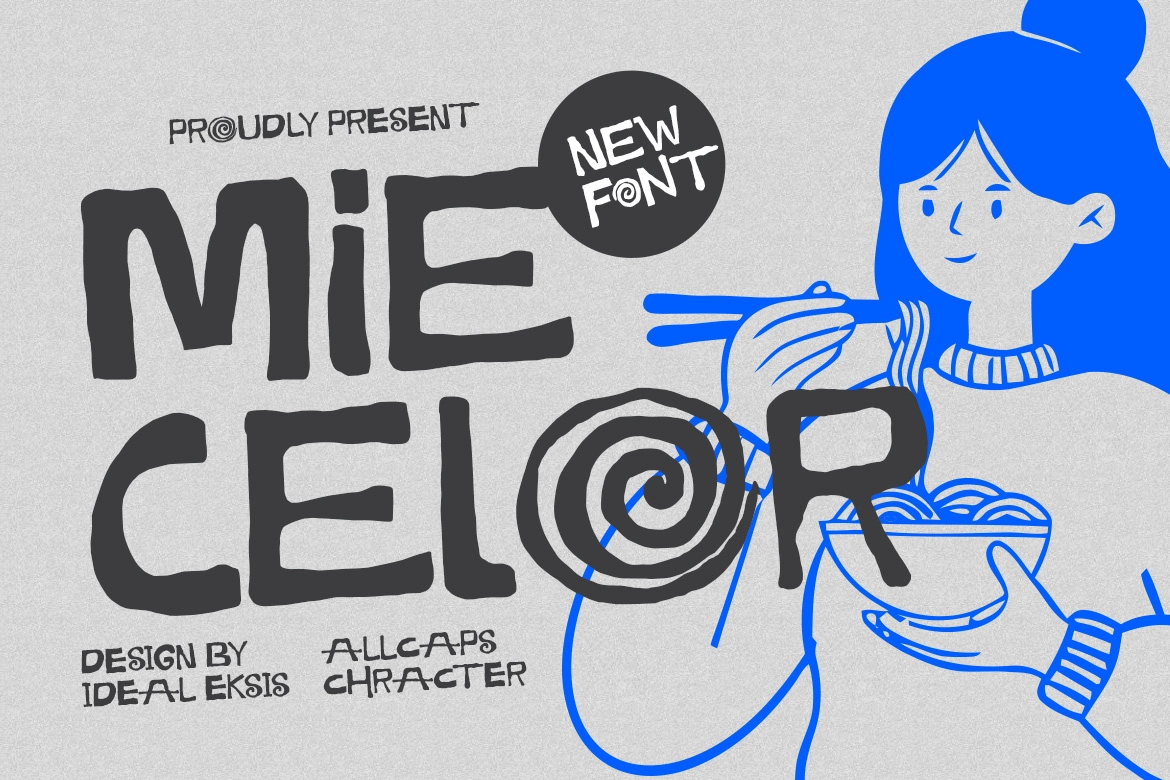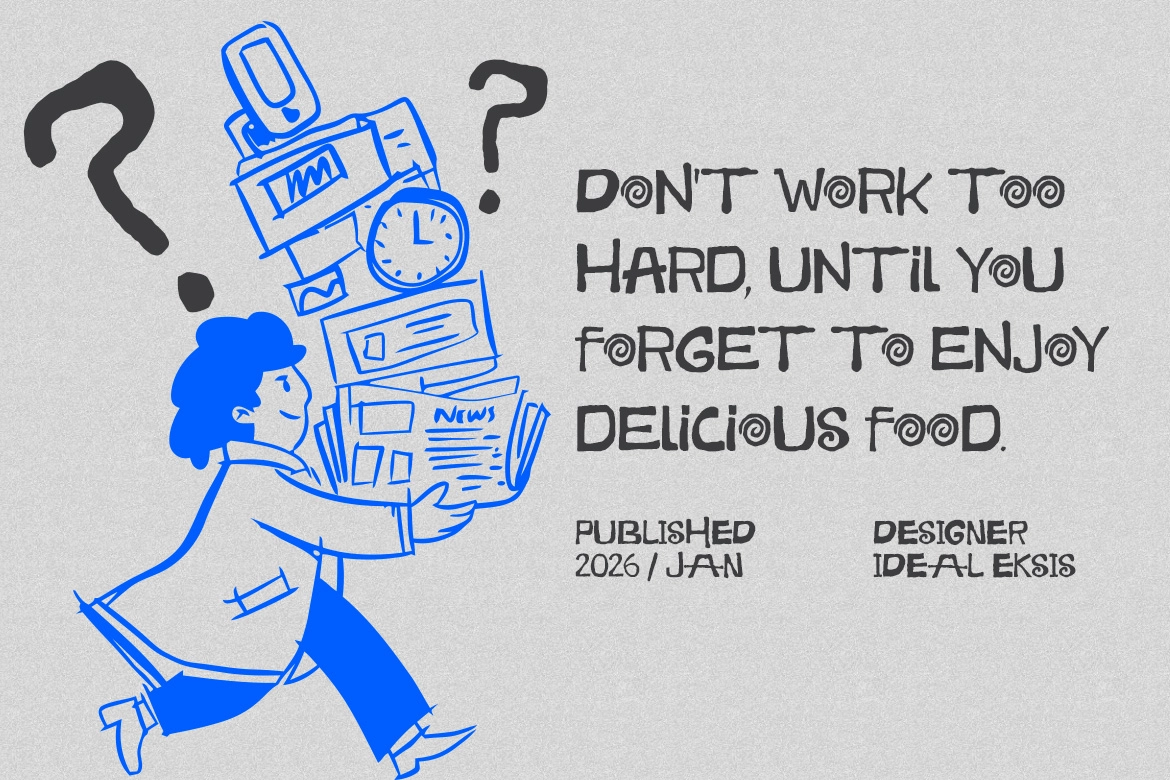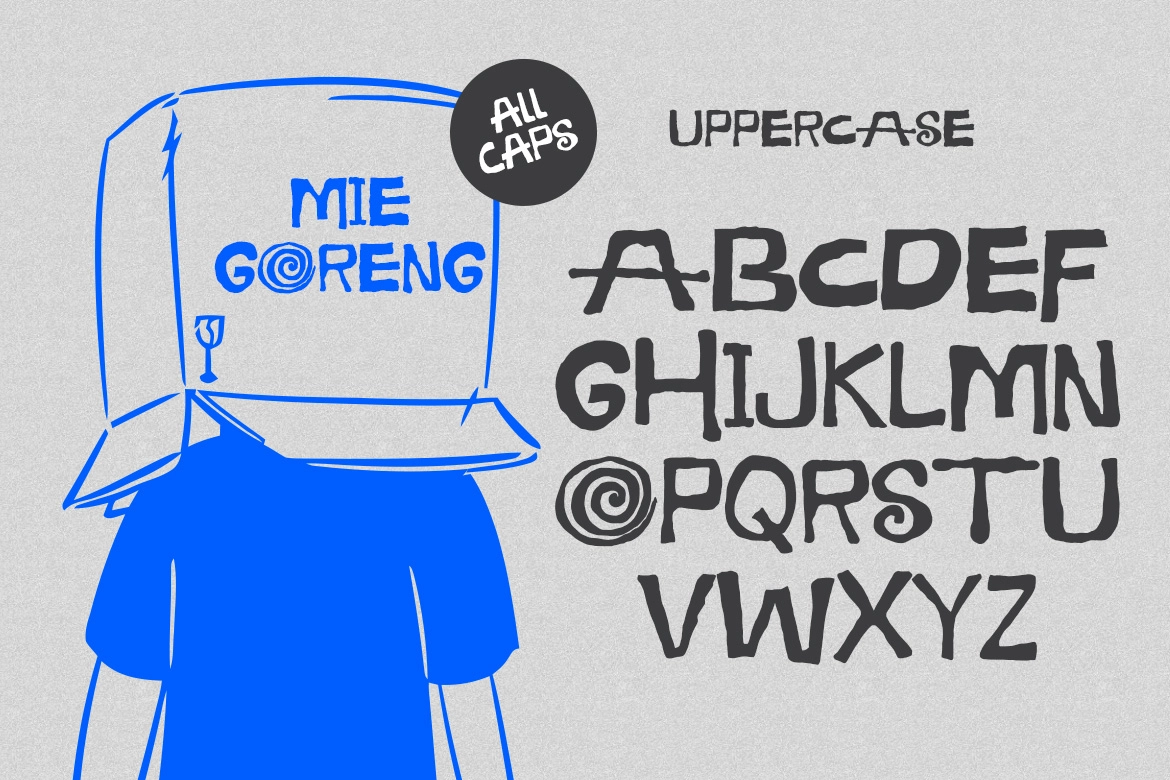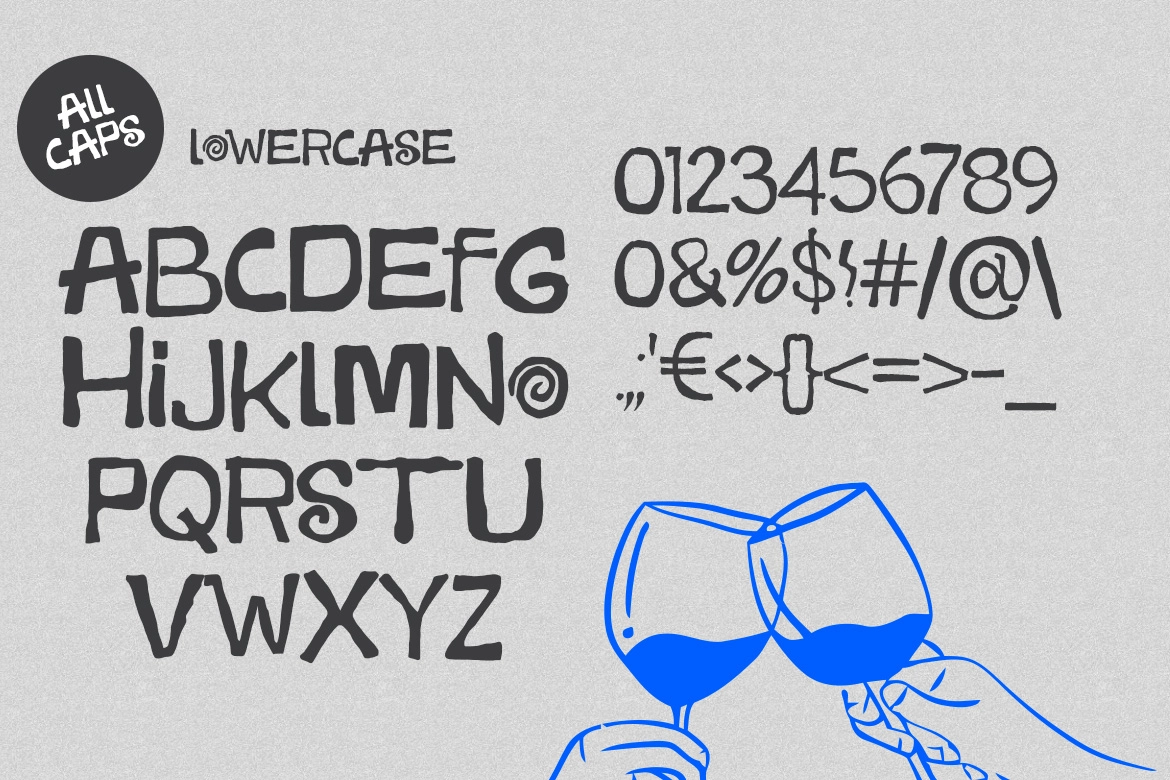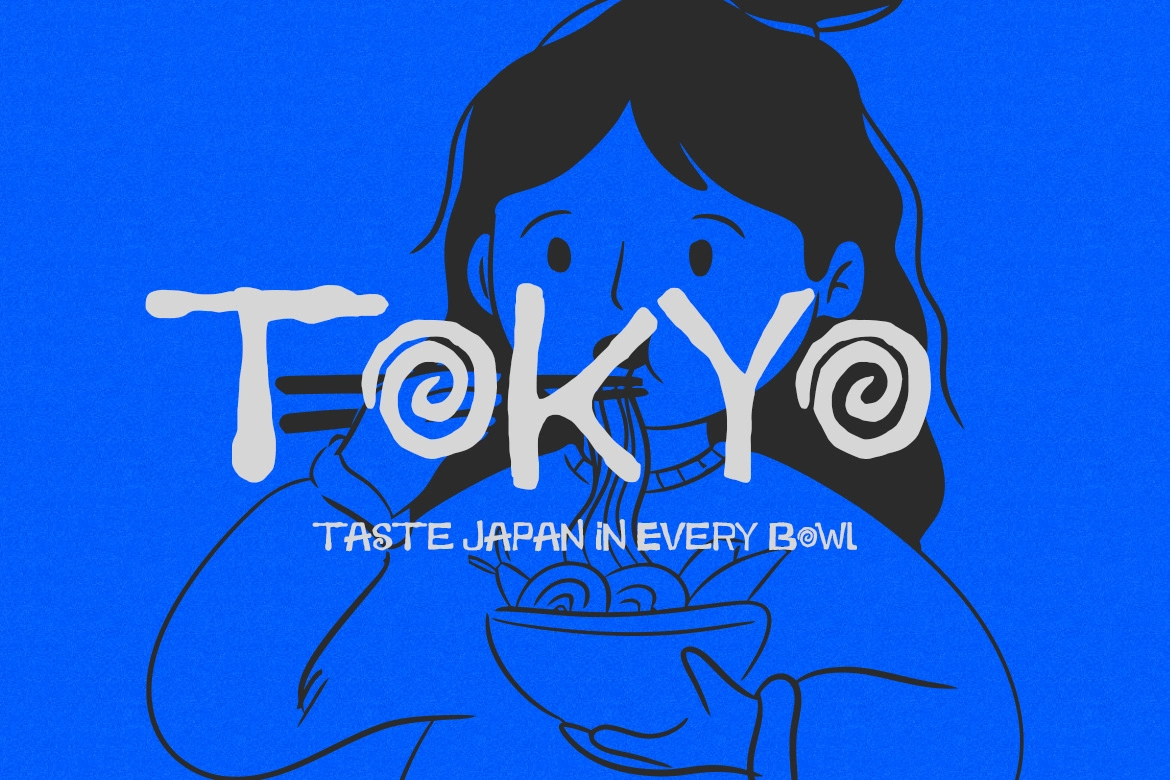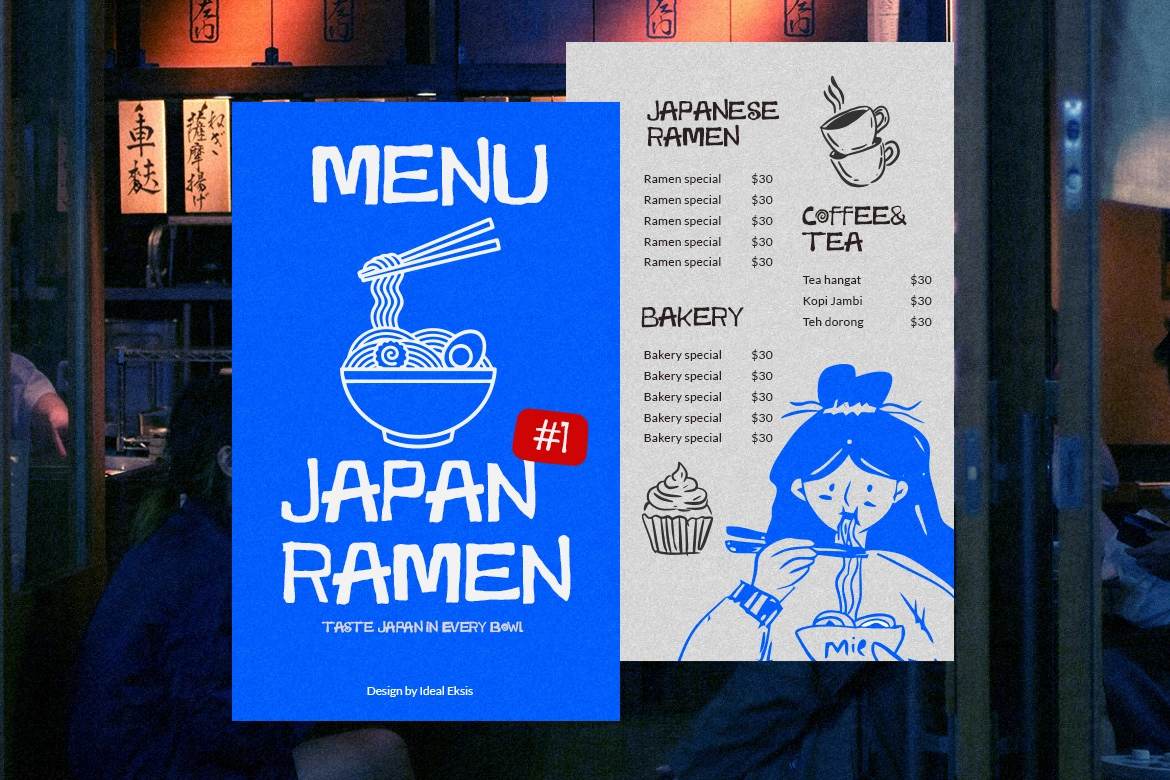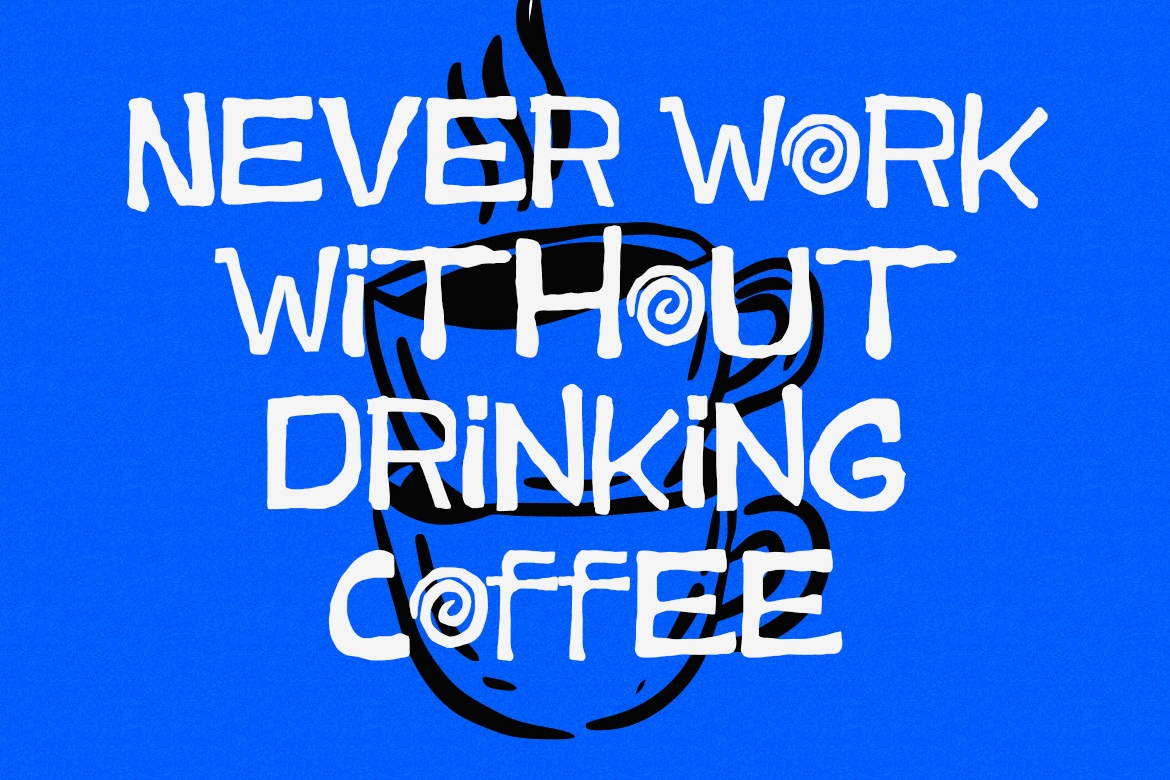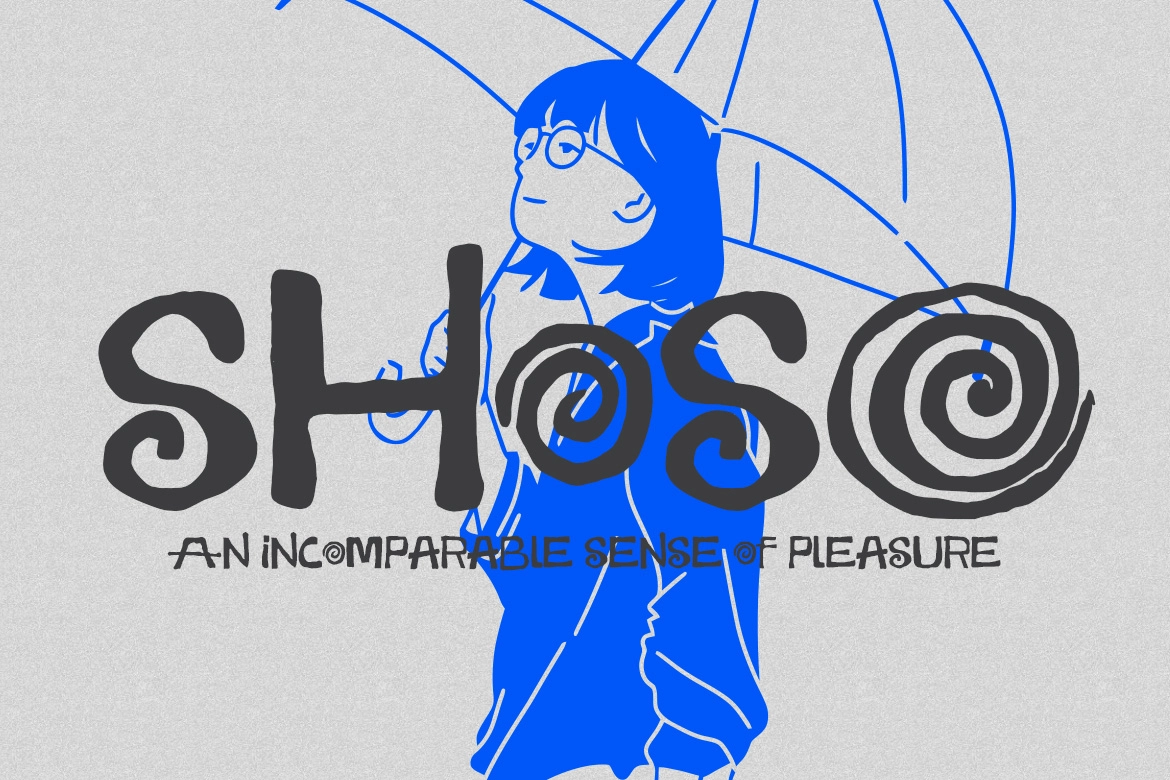
Mie Celor - Naive Hand-drawn Typeface
Mie Celor
Mie Celor – Naive Hand-drawn Typeface is a bold and expressive font with a playful, imperfect charm. Featuring chunky strokes and irregular shapes, this naive hand-drawn typeface captures the raw energy of marker and brush lettering, giving your designs a spontaneous and authentic feel.
The uneven edges and organic structure create a relaxed, human touch that stands out in a world of polished typography. Designed in an all-caps style, Mie Celor delivers strong readability while keeping a fun, casual personality—perfect for projects that need warmth, creativity, and approachability.